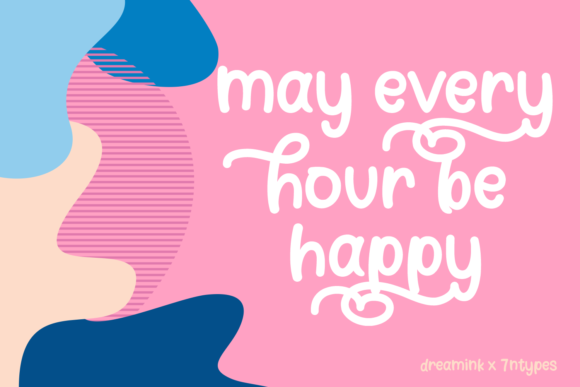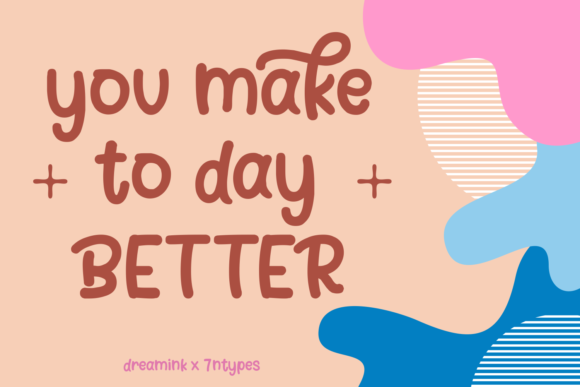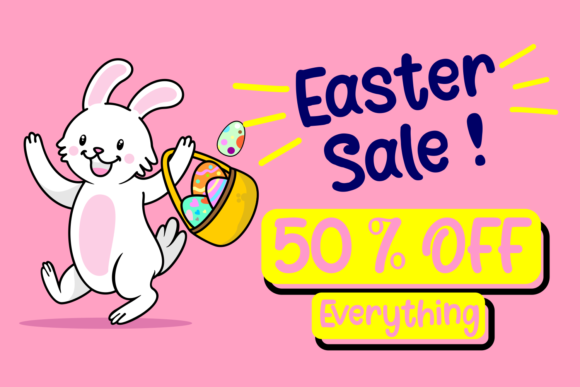
Clowny Font
About Clowny Font
Clowny feels equally charming and elegant. This stunning handwritting font is a stylish homage to classic calligraphy. It will elevate a wide range of design projects to the highest level, be it branding, headings, wedding designs, invitations, signatures, logos, labels, and much more!